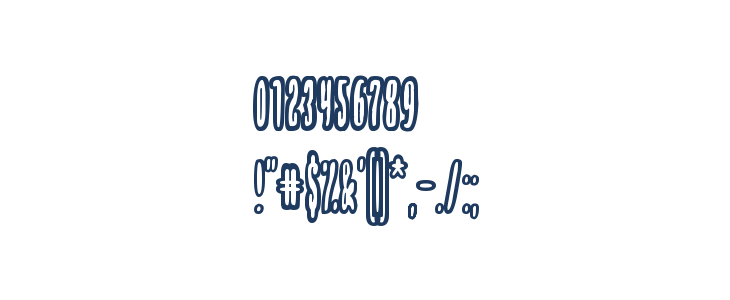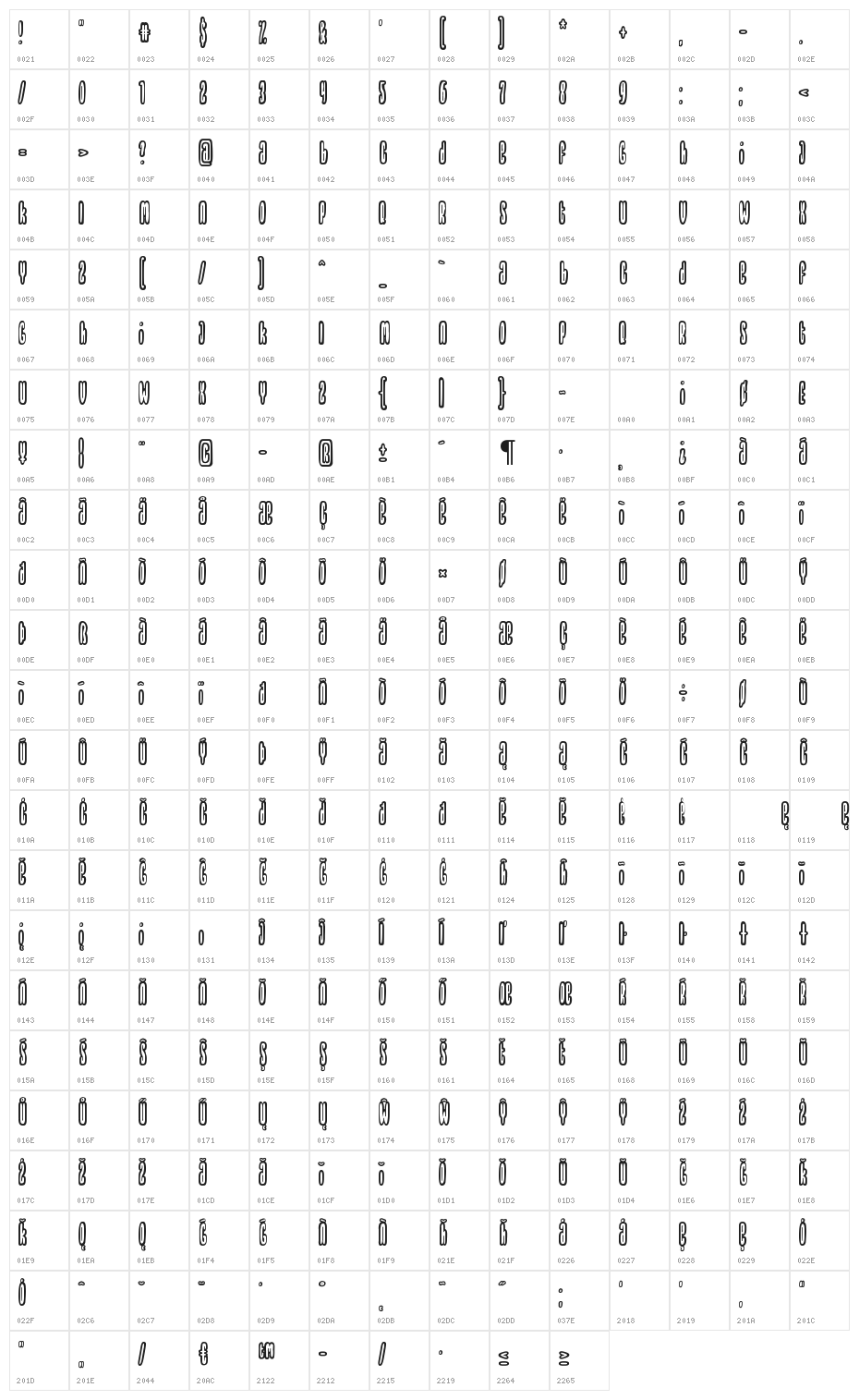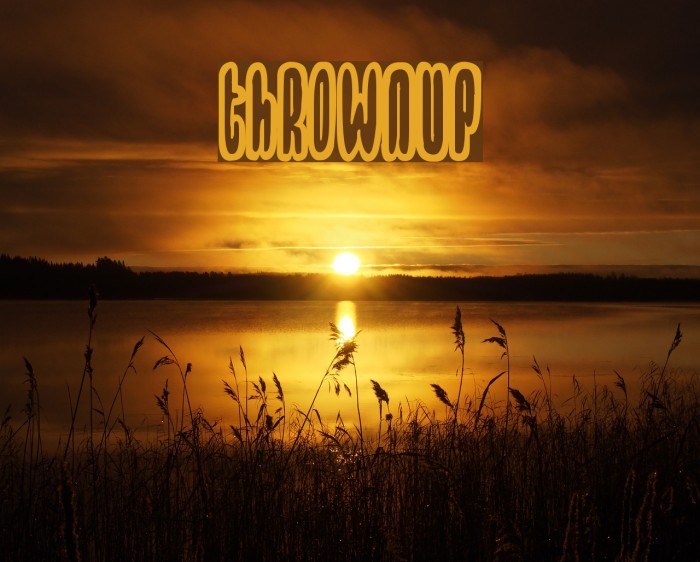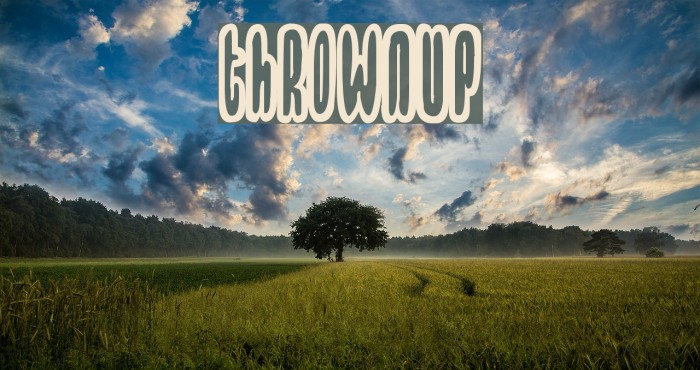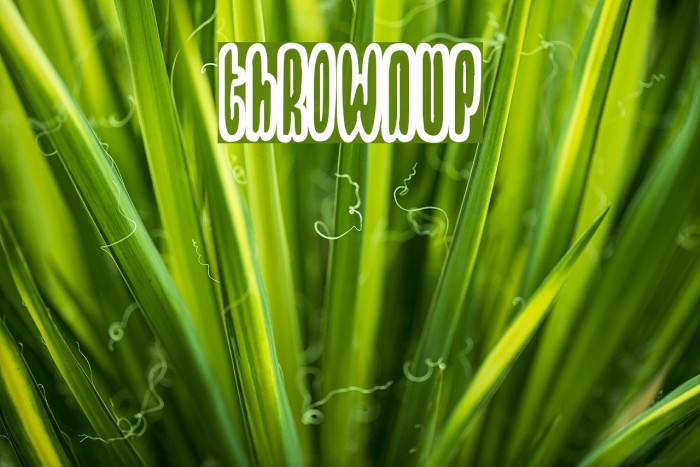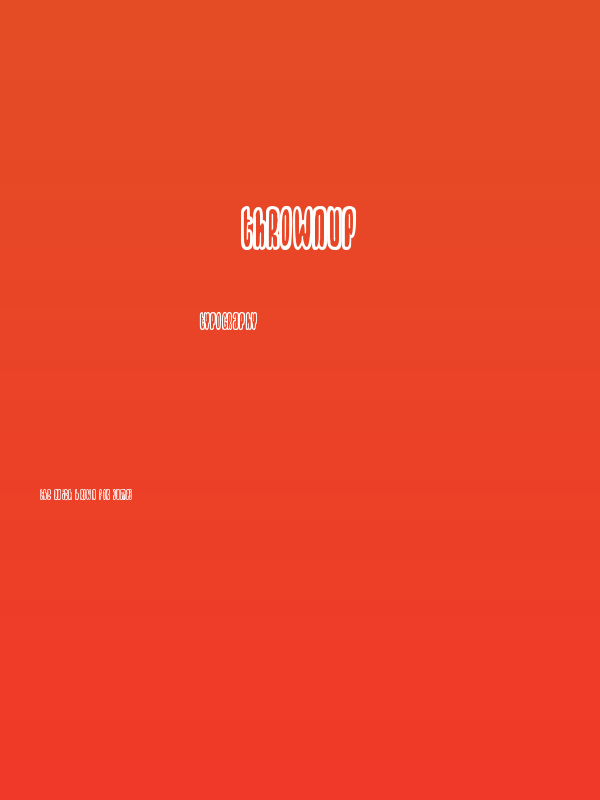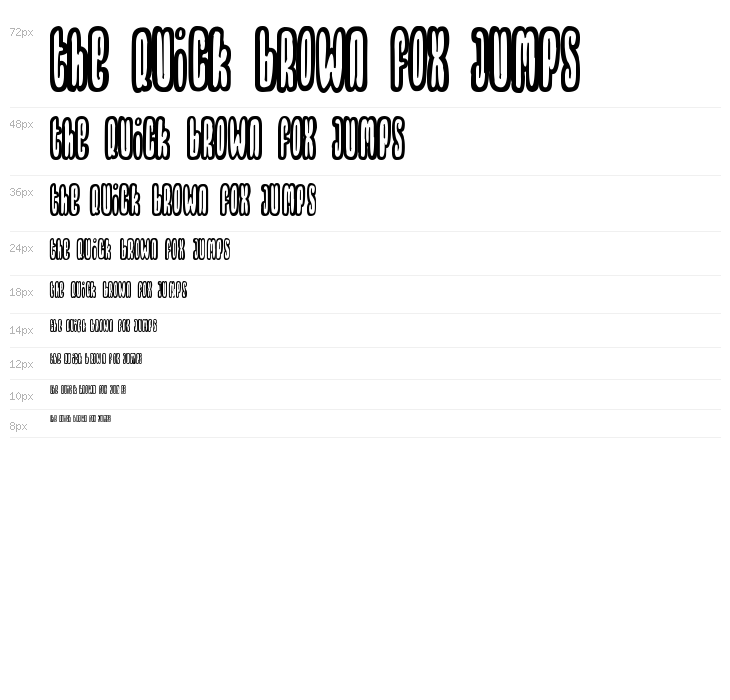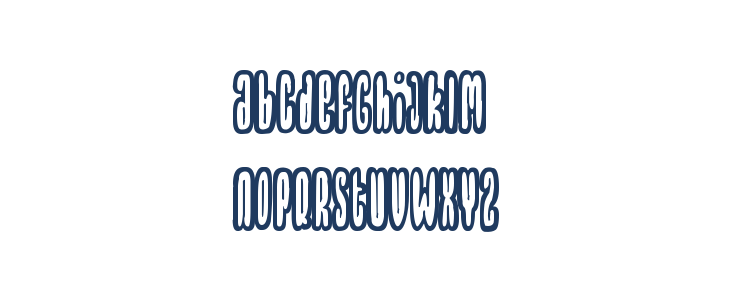
Thrownup Font
| النمط العام | Playful, Fun, Whimsical |
| مشاريع مقترحة | Ideal for children's books, playful branding, party invitations, and creative posters. |